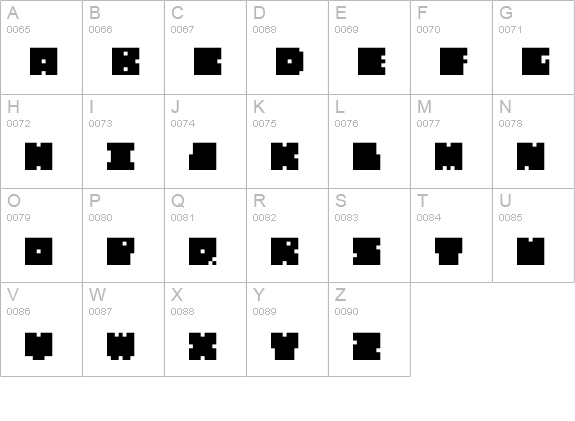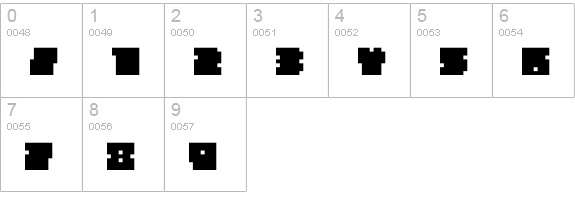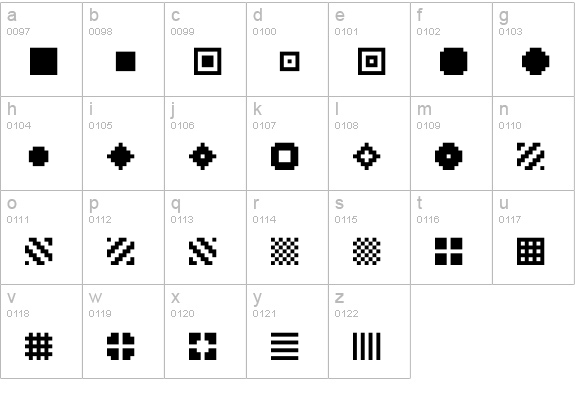
Introducing QUBE, a modern and stylish font that is perfect for all your creative projects. With its clean lines and geometric shapes, QUBE exudes a sense of sophistication and elegance. Whether you're designing a logo, creating a website, or crafting an eye-catching poster, this font is sure to make a lasting impression. But what sets QUBE apart from the rest? It's not just its stunning aesthetics, but also its availability. That's right, QUBE is absolutely free! You heard it right, this incredible font can be yours without having to spend a single penny. It's freely available to download exclusively at FontsMarket.com. Imagine having access to a font that combines modernity with versatility, all without breaking the bank. QUBE allows you to unleash your creativity without any limitations. Its clean and crisp design makes it perfect for both print and digital media, ensuring that your creations will always look professional and polished. With QUBE, you can embrace the power of typography and elevate your designs to new heights. Whether you're a graphic designer, a web developer, or simply someone who appreciates beautiful fonts, QUBE is a must-have in your collection. So why wait? Don't miss out on this incredible opportunity to add QUBE to your font library. Head over to FontsMarket.com now and download it for free. Experience the beauty and versatility of QUBE and let your imagination run wild.